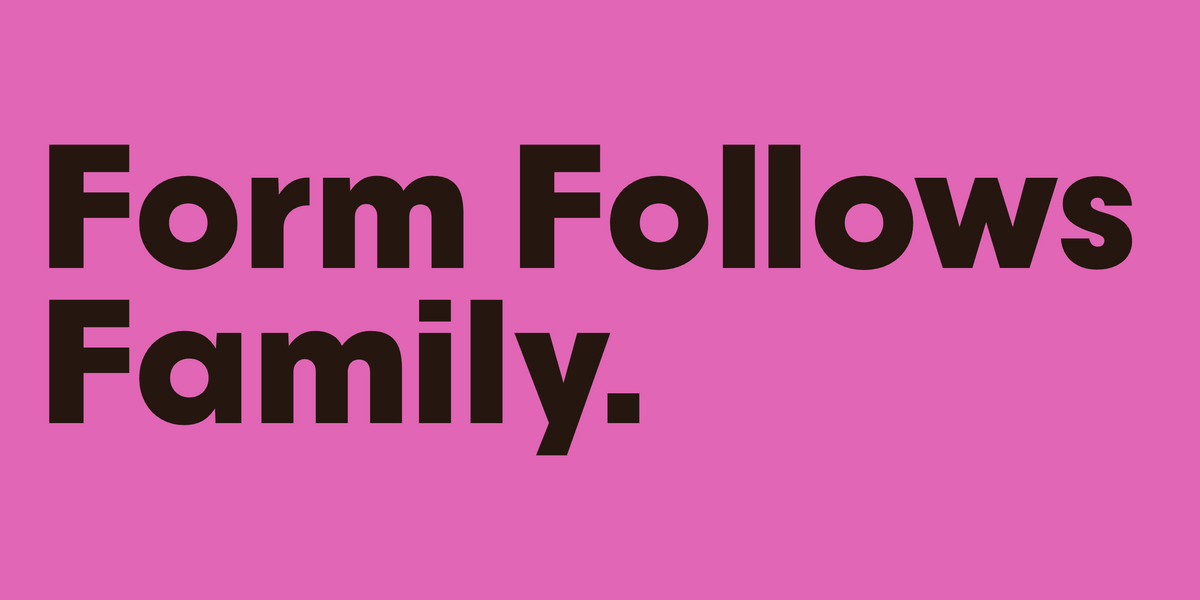
Bauhaus Fonts: The Mojomox Bauhaus-Inspired Family
Form Follows Family. Set in Geo by Mojomox
The Bauhaus school never died. Its commitment to geometric clarity, honest materials, and form-following-function still shapes the typography that designers reach for in 2026. The Mojomox Bauhaus family is a small foundry-within-a-foundry: eight fonts that share a design philosophy across very different categories. Organic serifs, geometric sans, high-contrast display, friendly rounded, tech-startup minimal. The same disciplined eye, in different voices.
This post is for designers building brand identity systems in Illustrator, InDesign, Photoshop, Figma, or Affinity who want a coherent type stack rather than a grab-bag of disconnected fonts. Pick two or three from this family and you have a complete identity system that reads as considered, not assembled.
1. Bauhaus Soft
The most-used member of the family. A bold organic serif with just enough contrast to feel premium without losing warmth. Use it where you want the gravitas of a serif with a softer edge. Works hard across beauty, lifestyle, packaging, and editorial branding. Pairs cleanly with any of the geometric sans below.
2. Bauhaus Bau
A rounded sans-serif with a modern retro feel. The shapes are friendly without being cartoony, and the proportions read as confident at any size. Often picked for lifestyle brands and consumer products. The natural companion to Bauhaus Soft when you want the same warmth in a sans.
3. Bauhaus Chez
A rounded high-contrast typeface that splits the difference between display elegance and friendly approachability. The contrast between thick and thin strokes gives it presence, while the rounded corners keep it warm. Works for beauty brands, packaging, and fashion editorial work.
4. Bauhaus Geo
A geometric typeface stripped down to essentials. Minimal forms, plenty of alternates, and weights that pair cleanly. Use it for tech brands, architectural work, or any identity that wants to feel calm and intentional. The most disciplined member of the family.
5. Bauhaus Slim
A friendly sans-serif designed for startup and tech branding. Narrower proportions than Bauhaus Geo, with a less industrial feel. Works well for SaaS identities, product UI headlines, and modern startup decks where you want approachable but considered.
6. Bauhaus Acme
A modern, cool sans-serif with clean alts and a versatile range. Sits between the geometric discipline of Bauhaus Geo and the warmth of Bauhaus Bau. A good pick when you want a sans that feels confident but not severe.
7. Bool
Playful sans-serif with bold proportions and fun alternates. The most expressive member of the family. Pairs unexpectedly well with Bauhaus Soft for kids brands, lifestyle product lines, and identities that need warmth and personality at the same time.
8. Bauhaus Desk
Bold extended sans-serif for tech and design contexts. Wide proportions give it presence in product UI, dashboards, and brand systems where you want a confident headline that holds its own at any size.
How to pair the Bauhaus family
A few combinations that work especially well:
• Bauhaus Soft + Bauhaus Geo. Organic serif headlines on geometric sans body text. The classic Bauhaus combination, modernized.
• Bauhaus Chez + Bauhaus Slim. High-contrast display for product names, slim sans for descriptions. Works well for beauty packaging systems.
• Bauhaus Bau + Bauhaus Soft. Two warm fonts in conversation. Good for kids brands, lifestyle products, and identities that want approachability across the system.
• Bauhaus Geo + Bool. Geometric discipline for body text, playful display for hero moments. Useful when a tech brand needs personality without abandoning structure.
Why Bauhaus typography keeps mattering
The Bauhaus approach asks designers to start from function, then add only what the function requires. That makes for type that ages well: each shape is the result of a decision rather than a flourish. A century after the school closed, designers still reach for Bauhaus-inspired type when they want clarity over decoration, system over style.